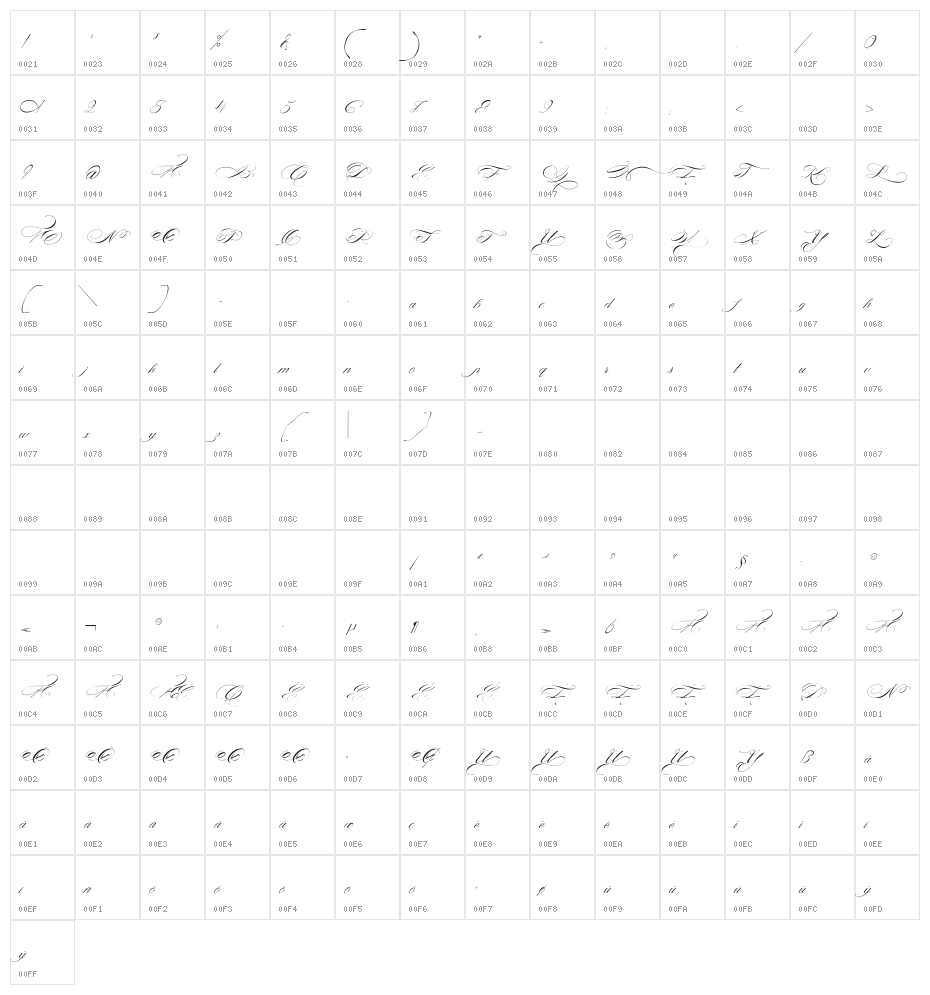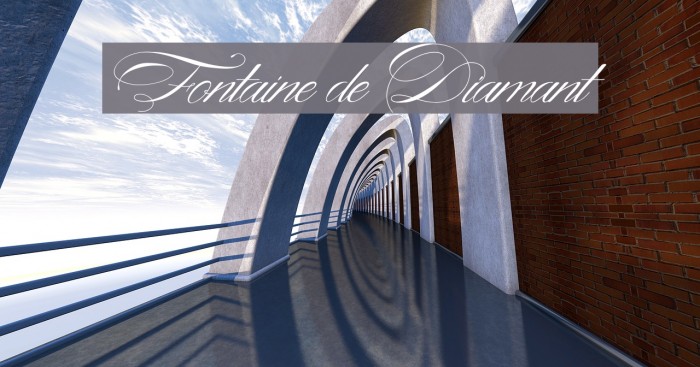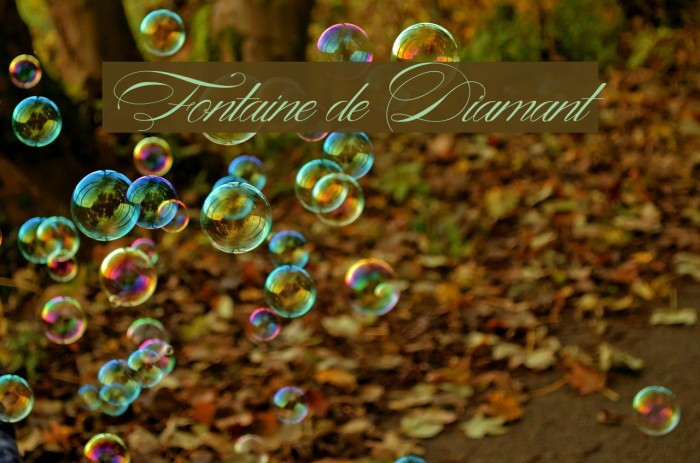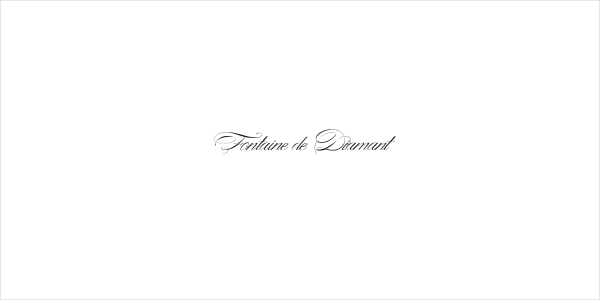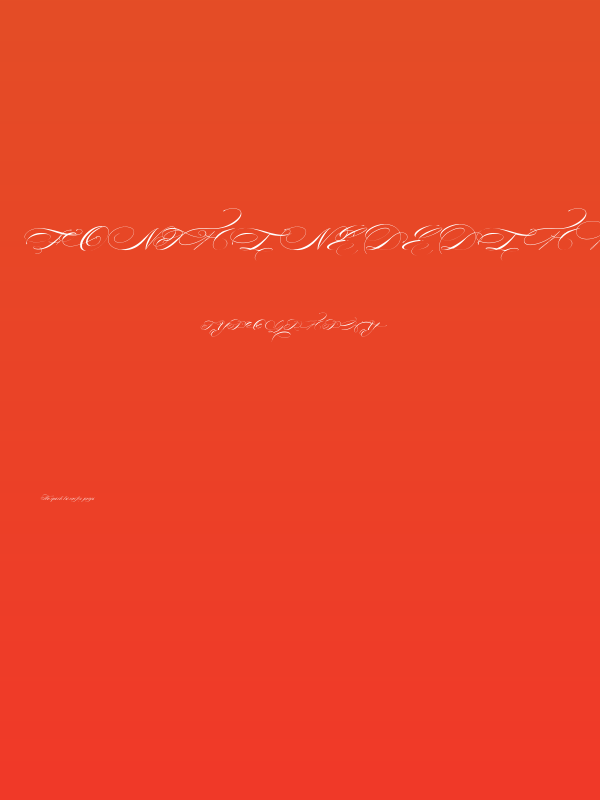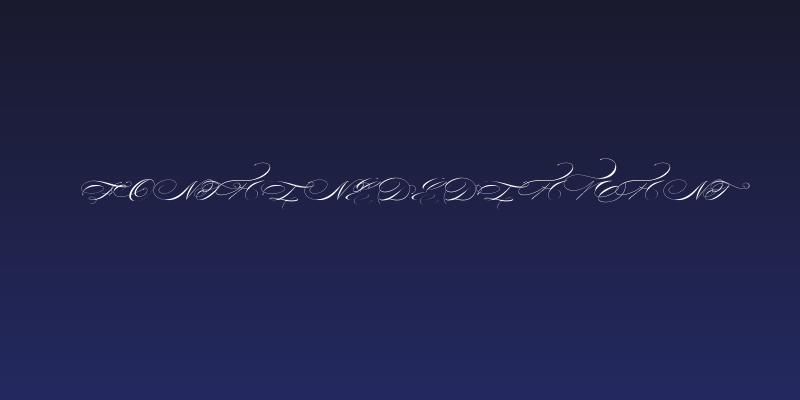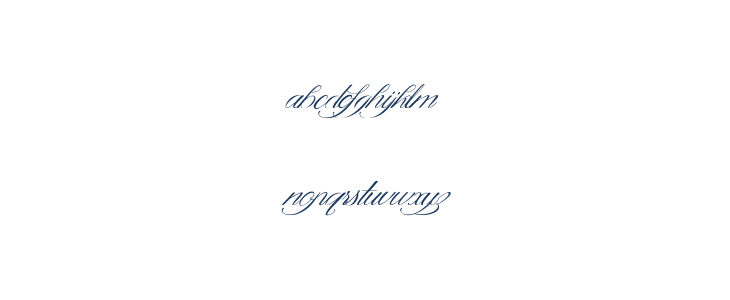
Fontaine de Diamant Font
Fontaine de Diamant Description
This elegant script font is characterized by its intricate and flowing design, reminiscent of classic calligraphy. The letters are adorned with elaborate swashes and flourishes, giving it a luxurious and sophisticated appearance. The uppercase letters are particularly ornate, with extended loops and curves that create a sense of movement and grace. The lowercase letters maintain a consistent style, complementing the uppercase with their own subtle embellishments. The numerals and special characters are equally detailed, ensuring a cohesive look across all elements. This font is perfect for projects that require a touch of elegance and refinement.
| Proposed Projects | Ideal for wedding invitations, luxury branding, elegant stationery, and formal event programs. |